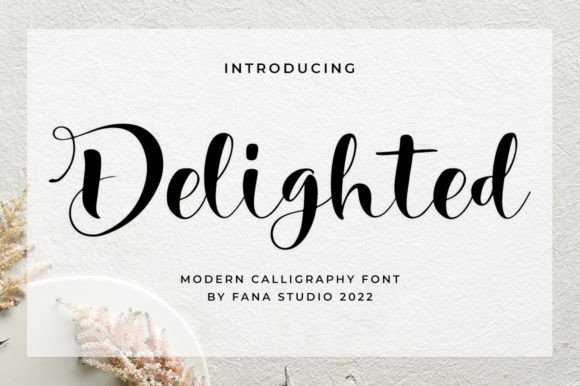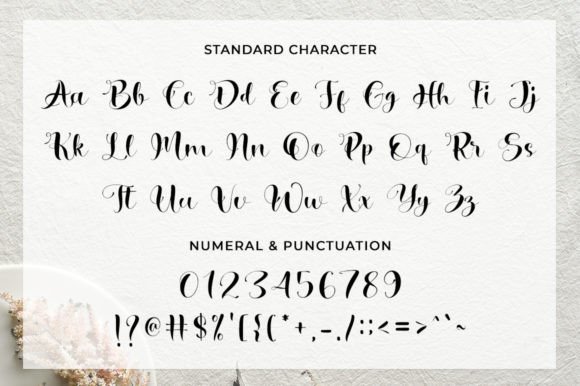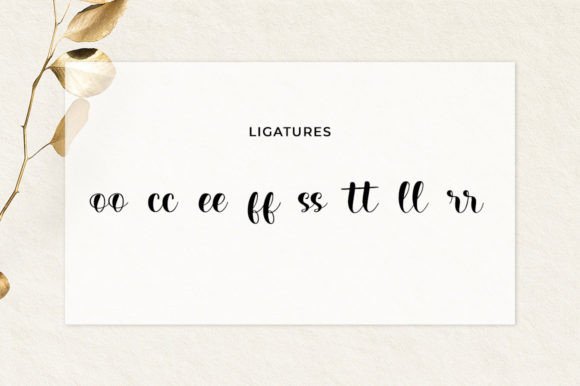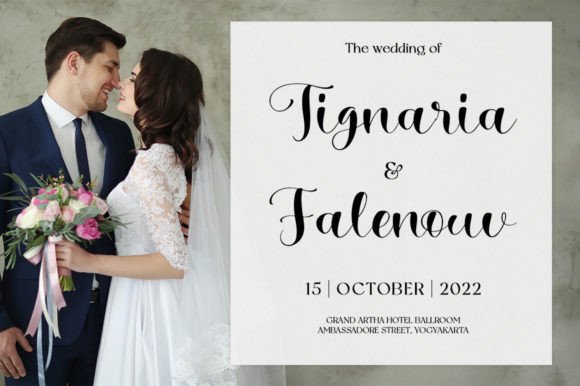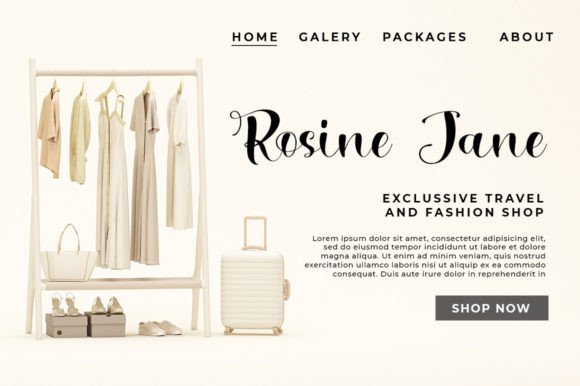
Delighted Font: Charming Script for Romantic Designs
“Delighted” is a tender handwritten font that exudes sweetness and delicacy. Its dainty appearance makes it perfect for adding a romantic touch to various design projects.
Key Features of Delighted Font
- Sweet Style: Delighted brings a joyful and romantic feel to designs.
- Flowing Characters: Gentle strokes create a warm, personal atmosphere.
- Versatile Use: Suitable for many projects, especially those evoking love and joy.
Wedding Stationery
Delighted’s romantic style is ideal for creating beautiful wedding invitations and other special event materials.
Greeting Cards and Love Notes
Use Delighted to design heartfelt greeting cards and love-themed messages that convey genuine emotions.
Posters and Digital Content
The font’s charming look makes it perfect for creating eye-catching posters and social media graphics.
Why Choose Delighted Font?
Delighted offers more than just sweet letters. Here’s why it stands out:
- Adds an authentic and human touch to typography
- Creates a sense of intimacy and warmth in designs
- Versatile enough for both personal and professional projects
By using Delighted, you open up new design possibilities. Its sweet style works well in many contexts, from branding projects to personal creations. The font’s ability to convey joy can inspire creative ideas and help you approach projects from a heartwarming perspective.
Delighted in Modern Design Trends
Delighted aligns well with modern design trends that favor authenticity and personal touch. Its handwritten style adds a unique quality that resonates with audiences seeking genuine connections, making it particularly effective for brands targeting romantic or joyful themes.
If you’re looking for a font that’s both sweet and versatile, Delighted is an excellent choice. It’s perfect for adding a romantic touch to your work, especially for projects that need to evoke feelings of love and happiness.
Explore how Delighted can transform your designs. From wedding stationery to poster designs, this font brings a charming and tender quality to your creations.